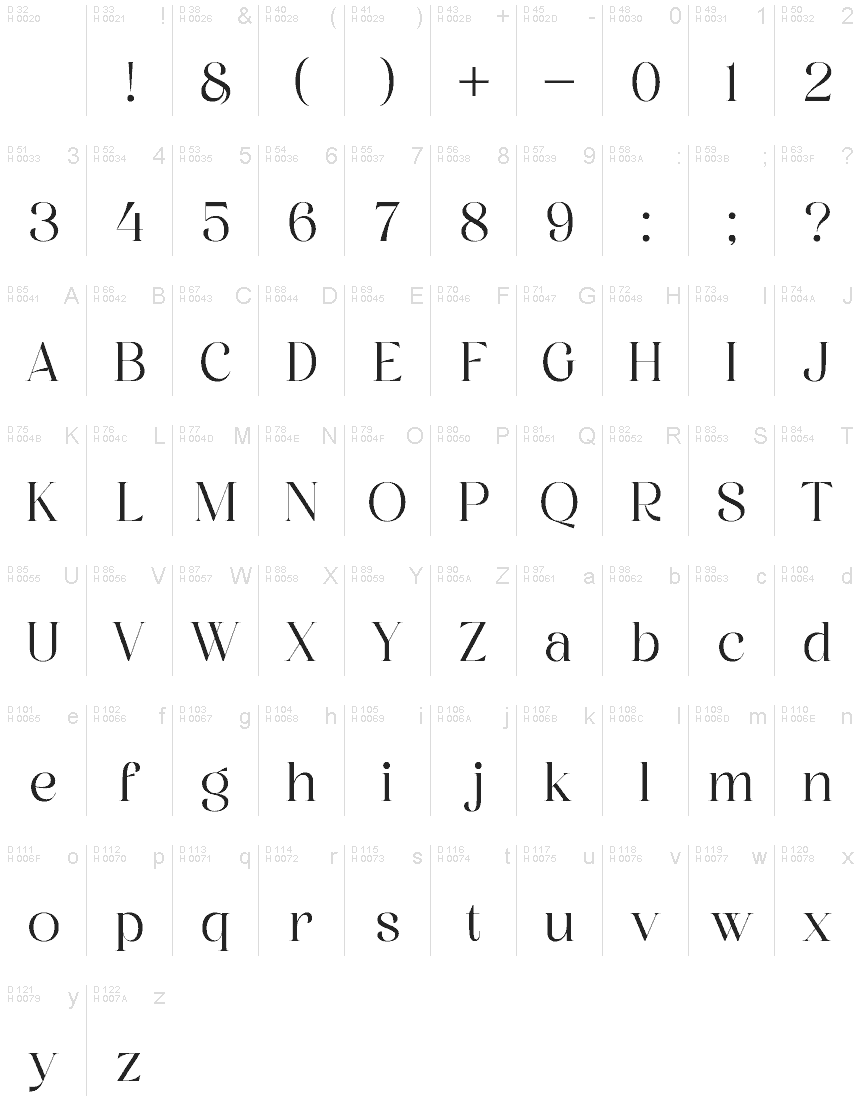
Graphire font is a sophisticated serif font designed by Creatype Studio. It holds an elegant and refined nature that enhances its overall classic allure, with the formal undertone further shining through. Be it branding, digital use, clothing items, or other types of displays, this versatile typeface holds well.
Business cards, brochures and printed ads are only some of the additional marketing tools that can make great use of Graphire (not included). Other ideas for use include book covers and headers for magazines or online articles. Since this is a free serif font, these uses are up to you.
Graphire